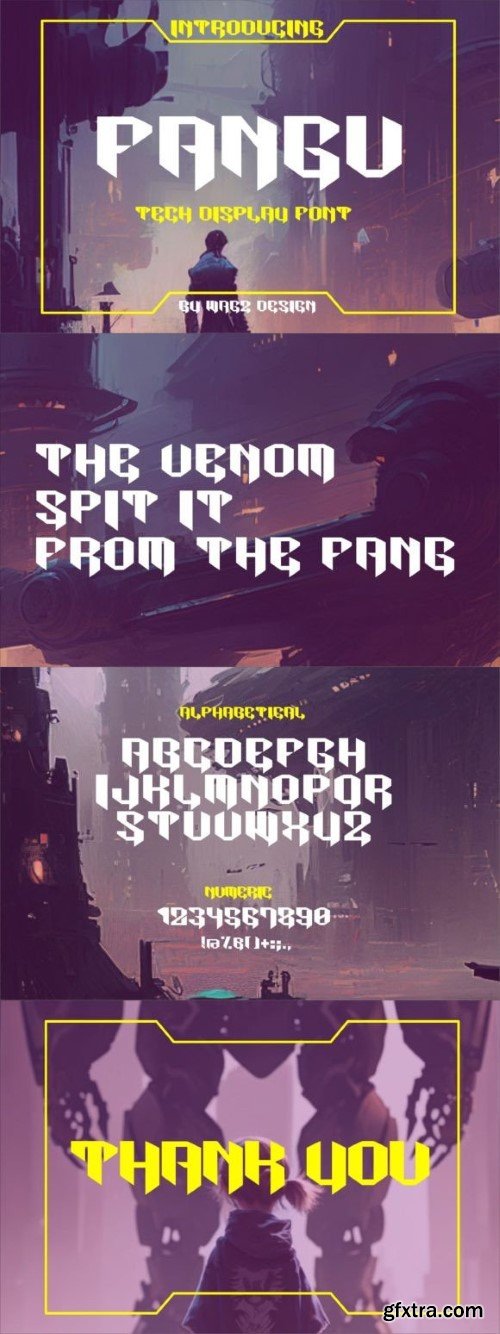
凡古字体
Fangu, a font exuding a contemporary and tech-inspired aesthetic, seamlessly blends modernity with an avant-garde display style. With sleek, futuristic lines and meticulously crafted letterforms, Fangu encapsulates the essence of cutting-edge design. This font’s dynamic and innovative character makes it an ideal choice for projects that demand a touch of sophistication and a forward-looking vibe. Whether used in digital interfaces, tech-related graphics, or sleek marketing materials, Fangu elevates the visual appeal with its modern flair. Embrace the future of typography with Fangu, where style meets technology in perfect harmony.